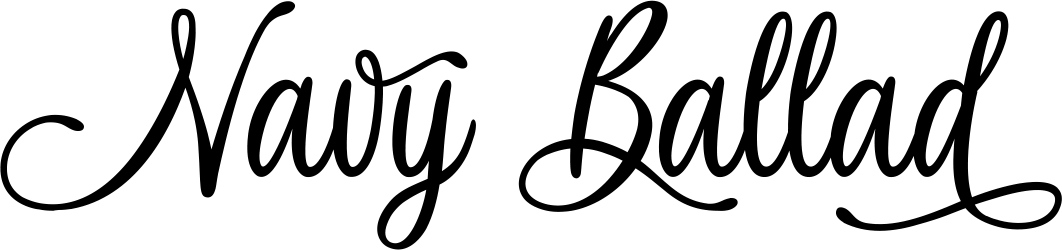
Navy Ballad Font
Do you want to design children’s printed text, fantasy magazines, fashions, and imaginative story headlines that come with delicacy and a friendly vibe? Then we offer you Navy Ballad which is a calligraphy fairytale font.
This whimsical tattoo font comes with a great collection of characters. You will find in this collection both the uppercase and lowercase of the alphabet, the numbers, the punctuation marks, and so many other letters.